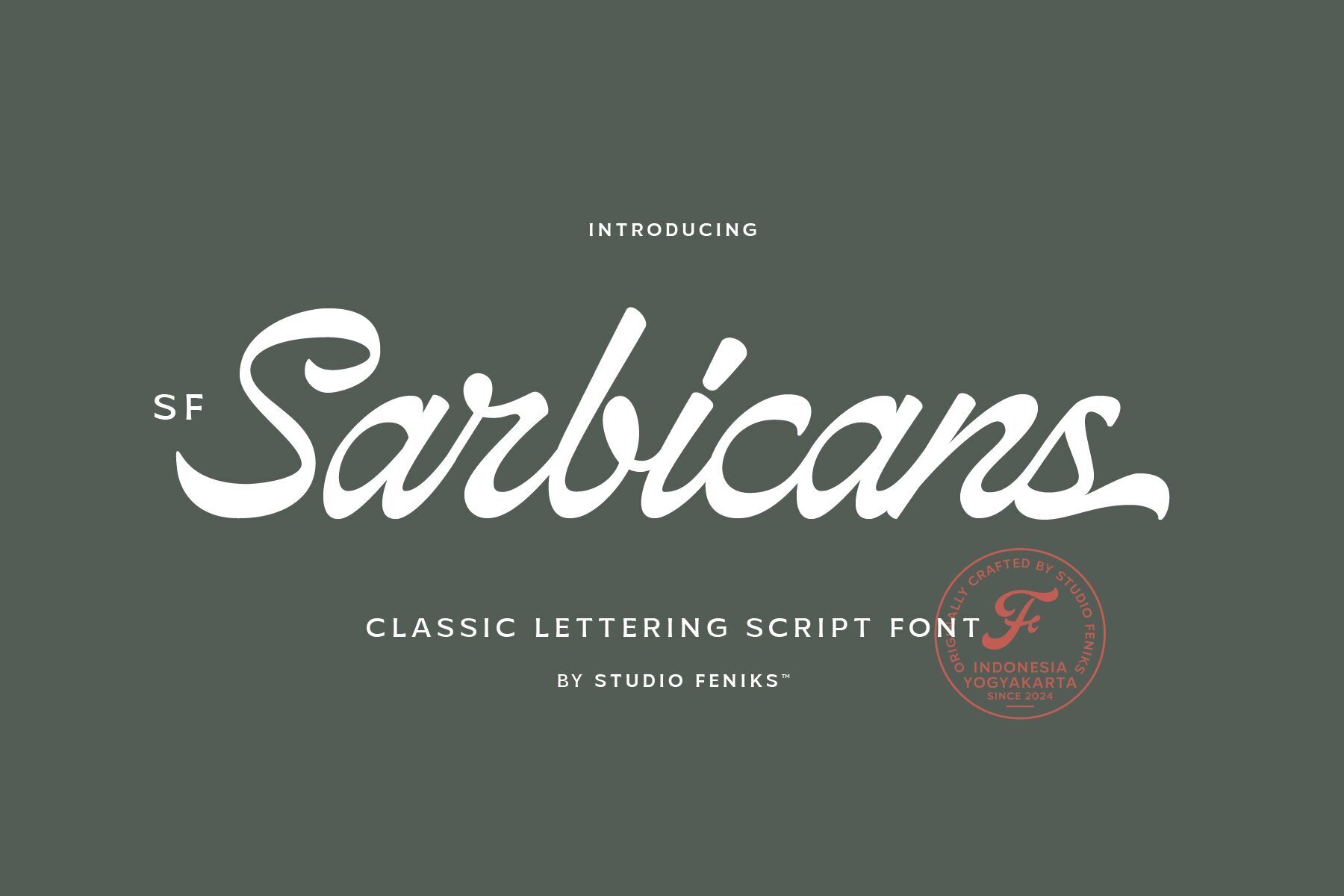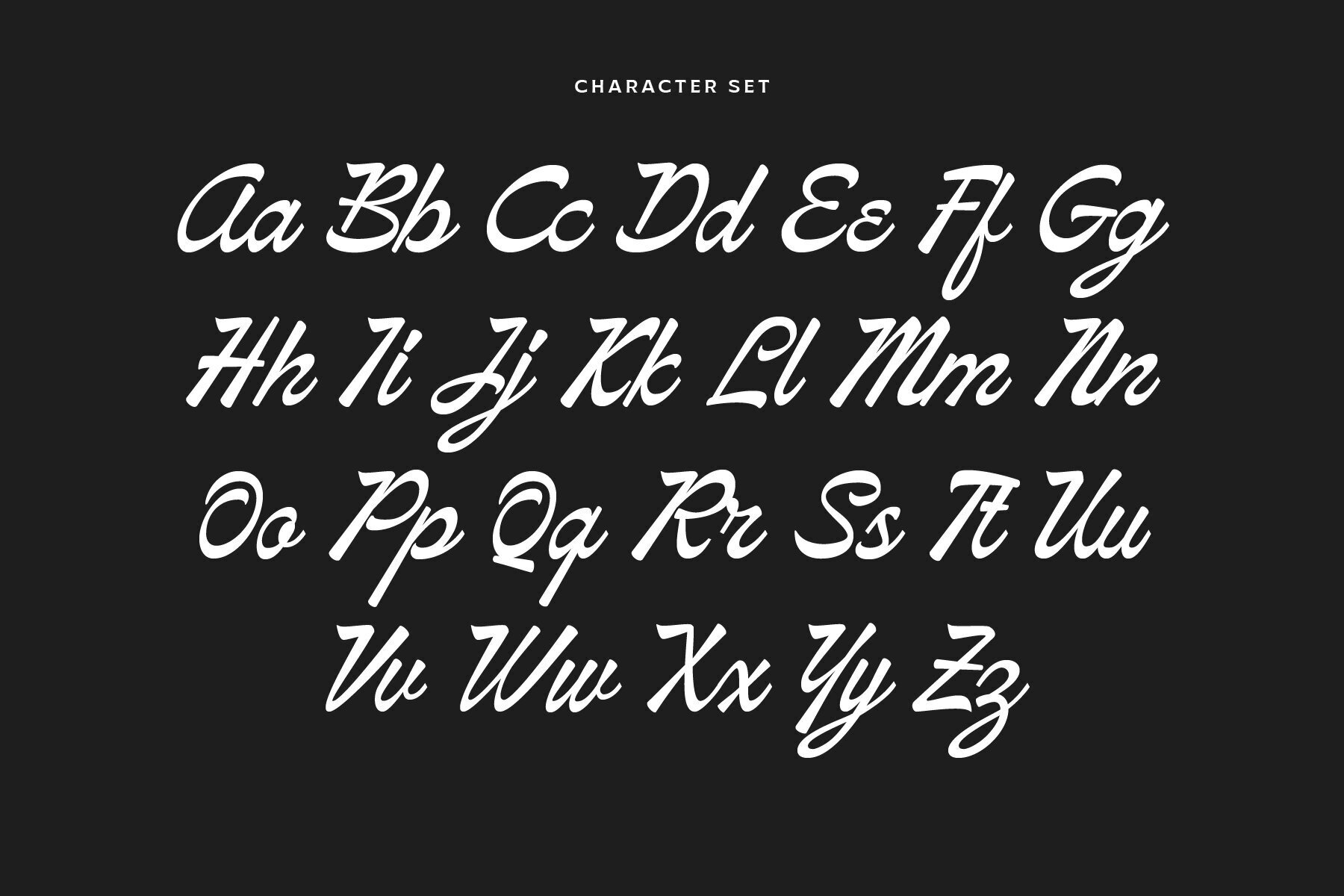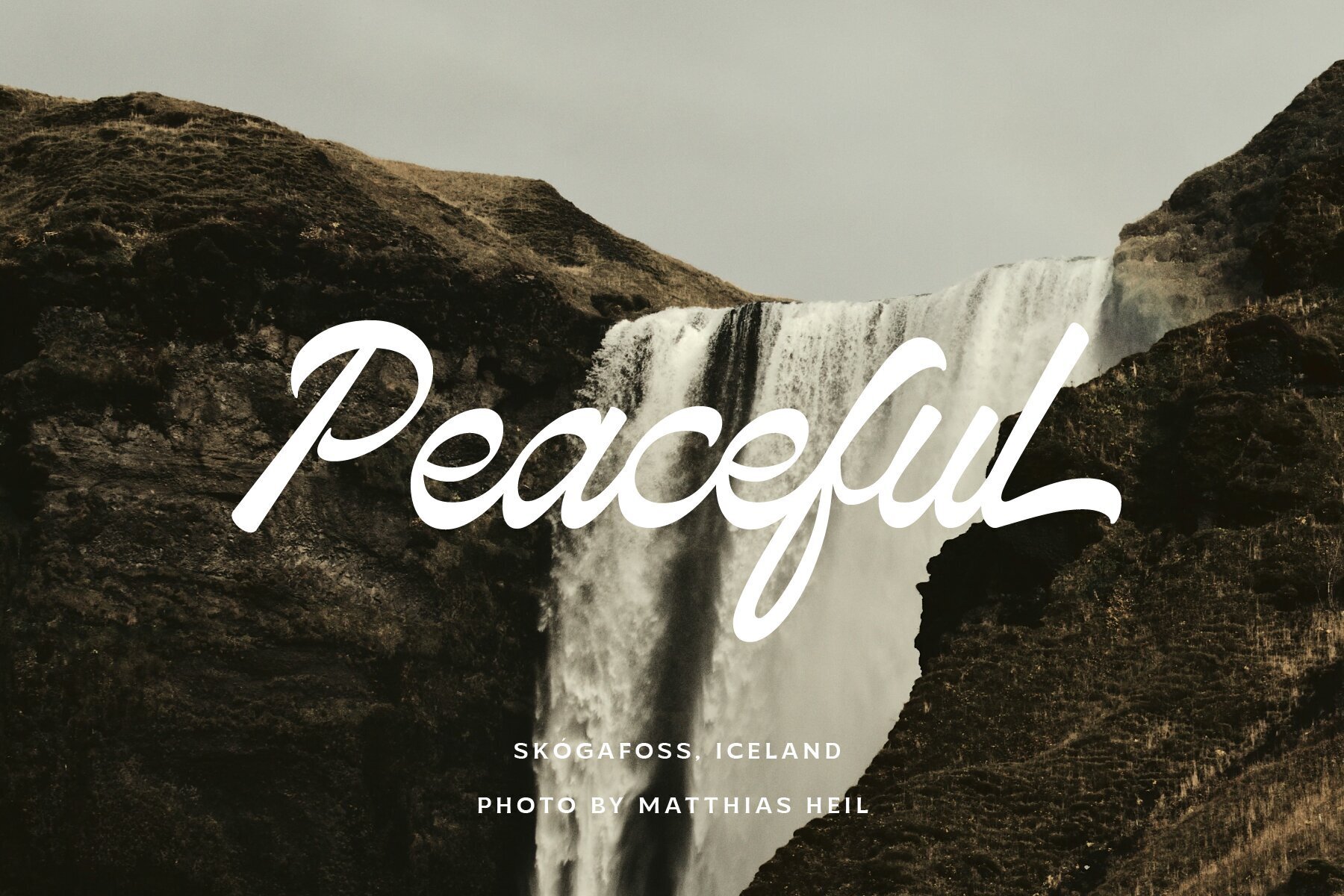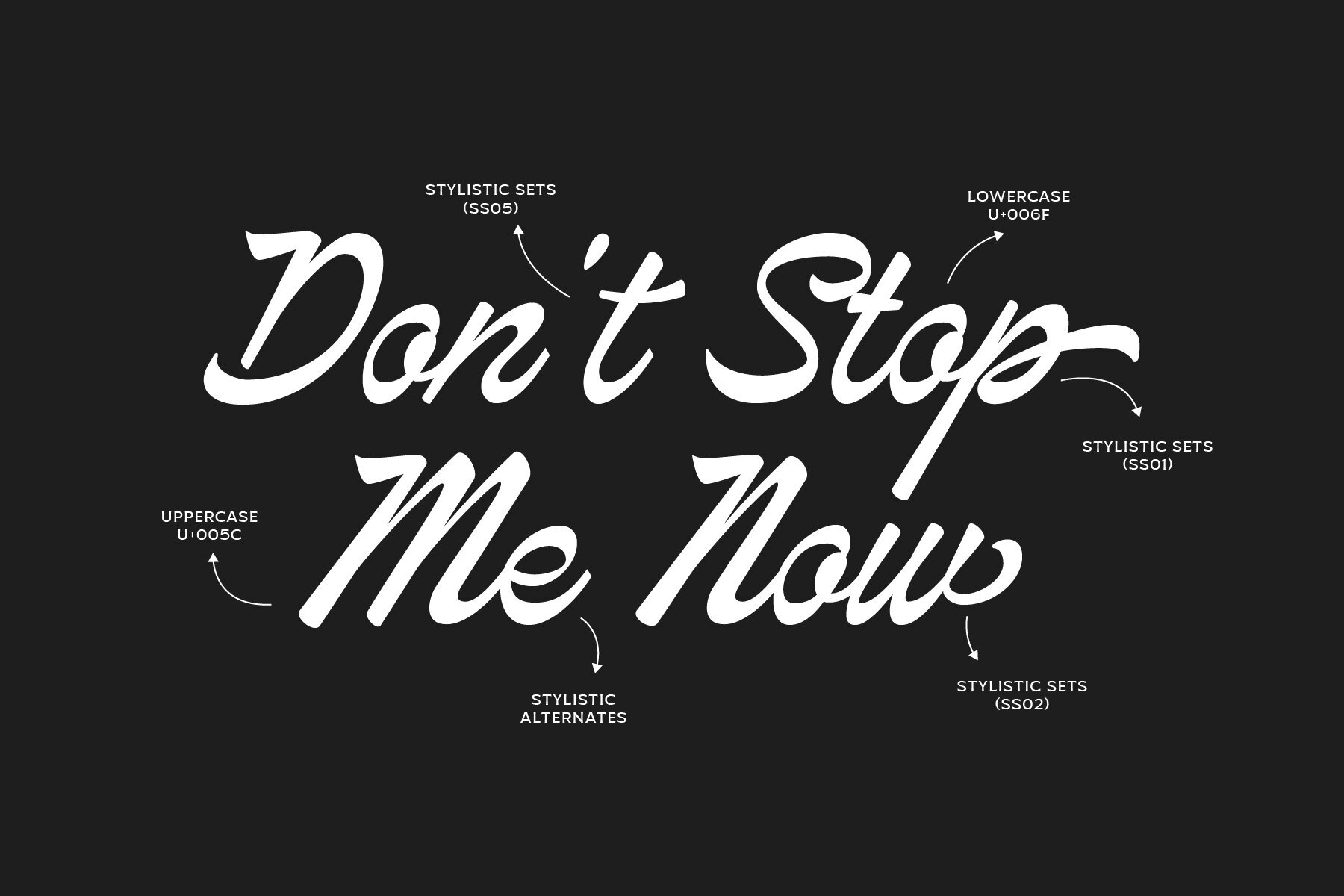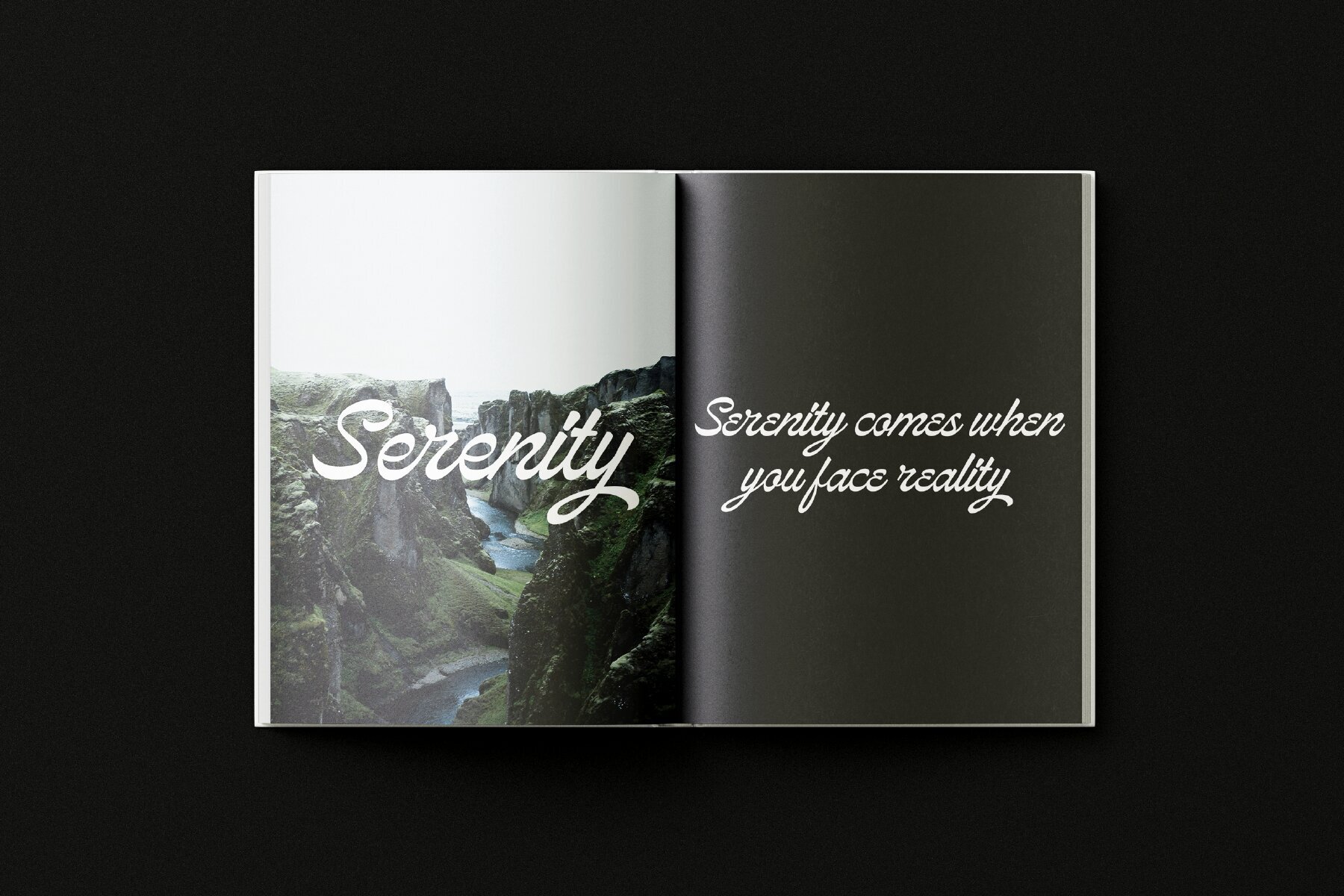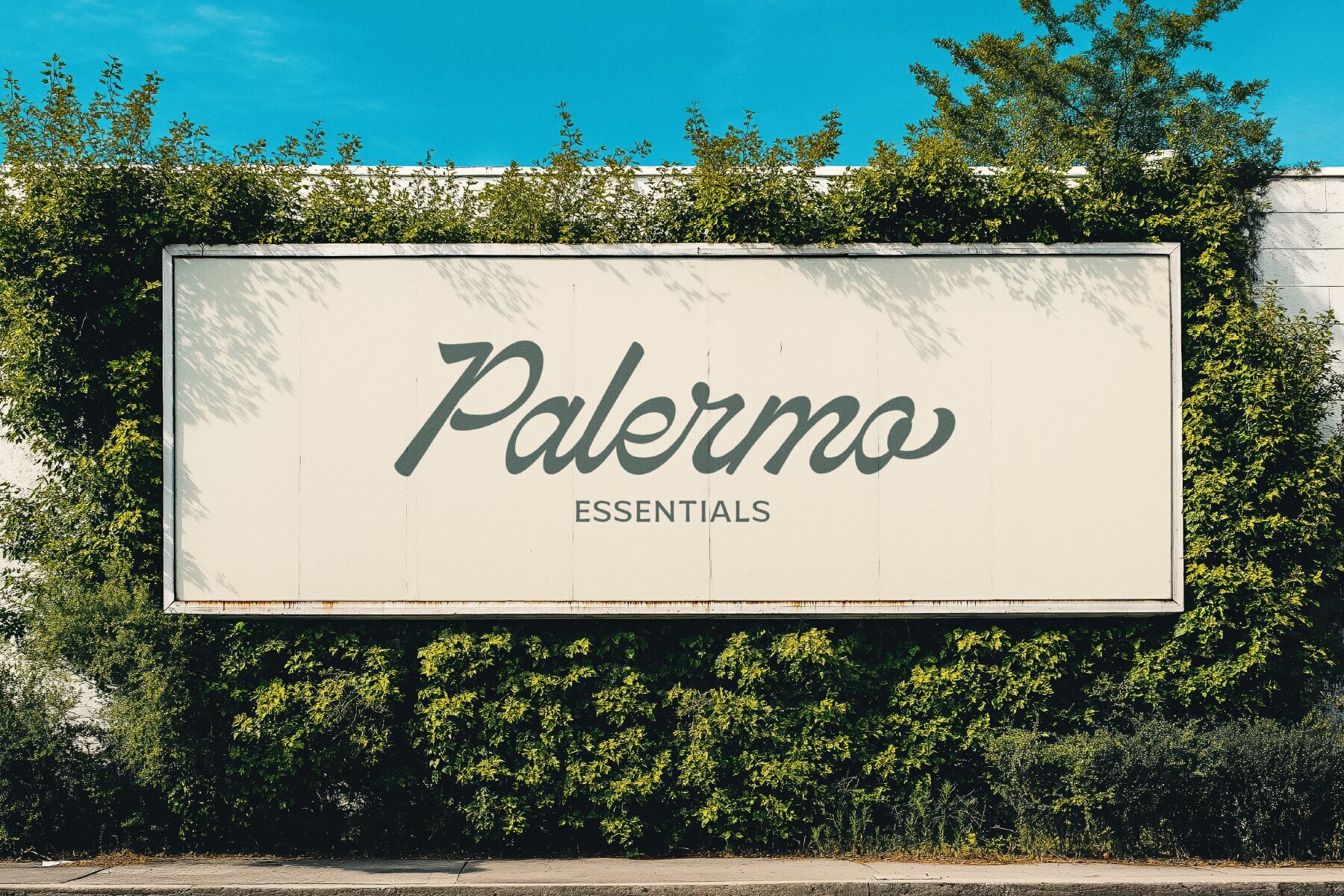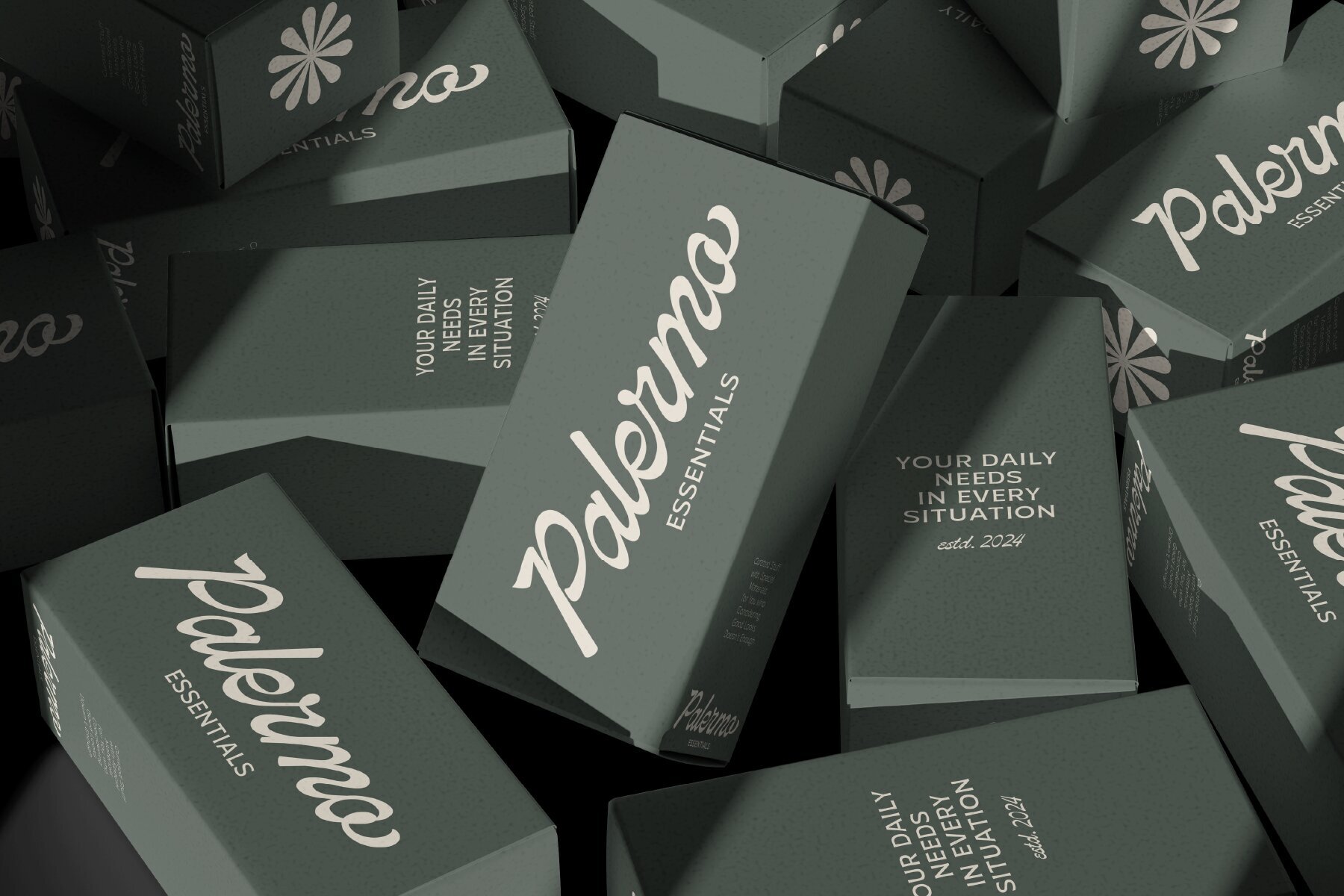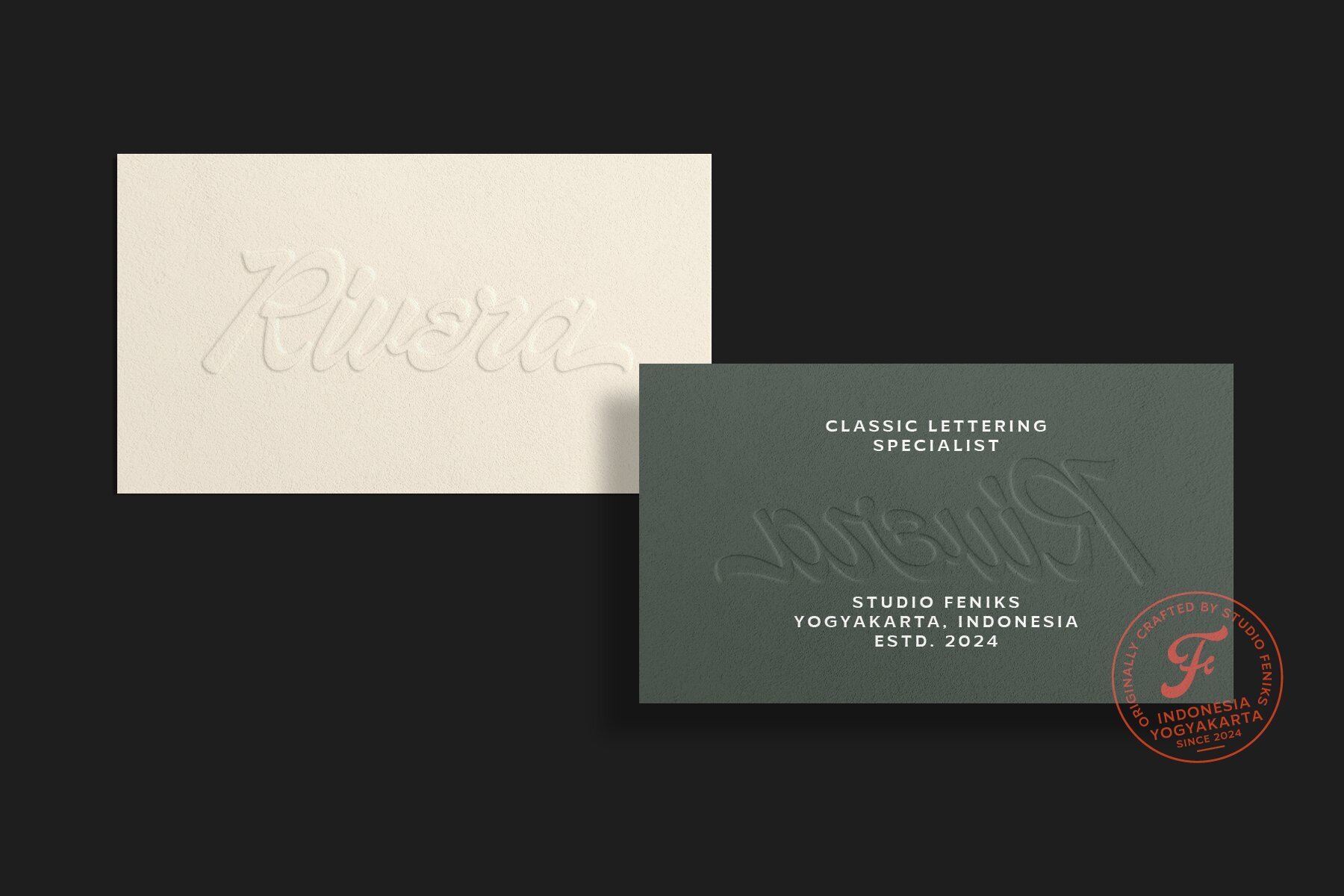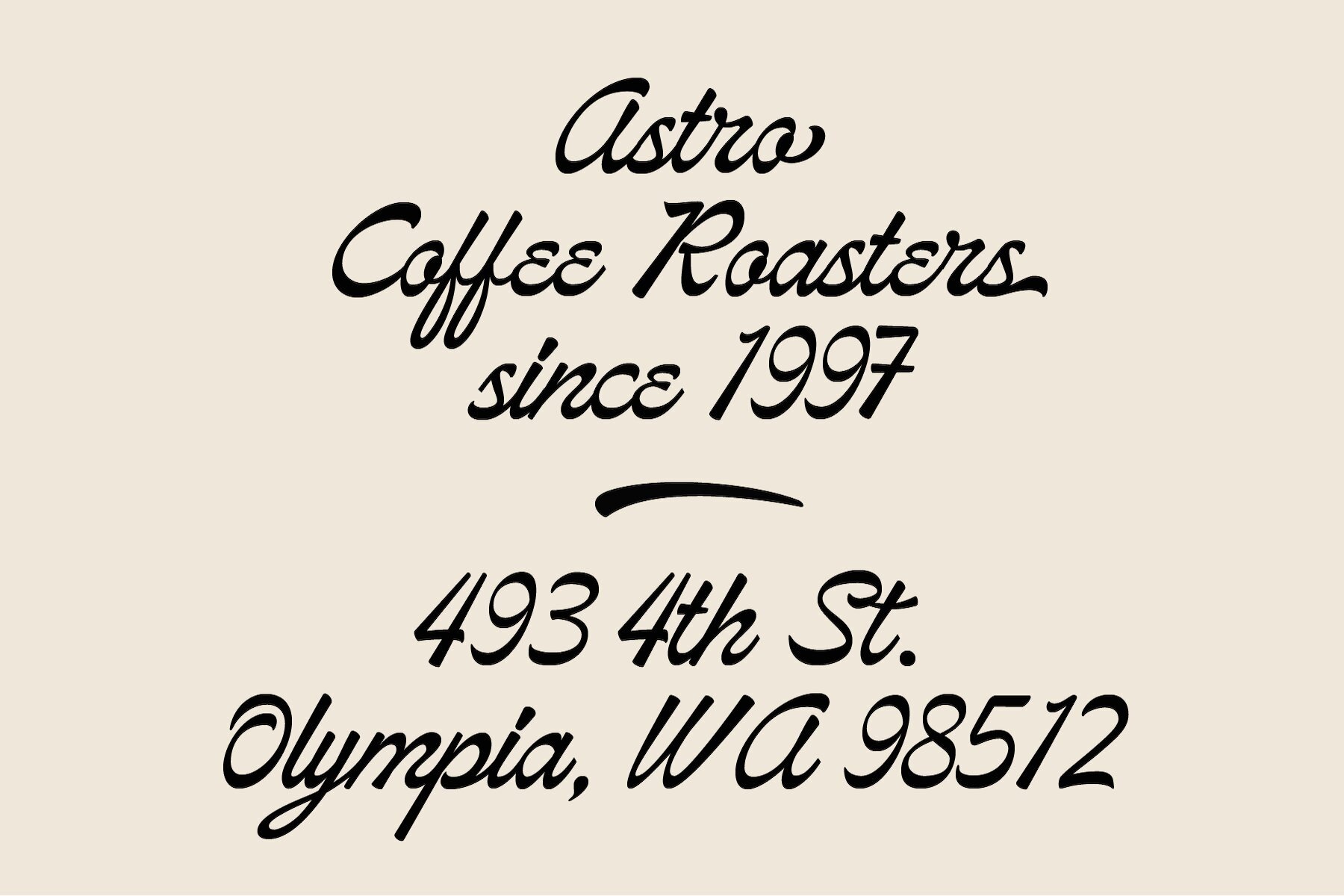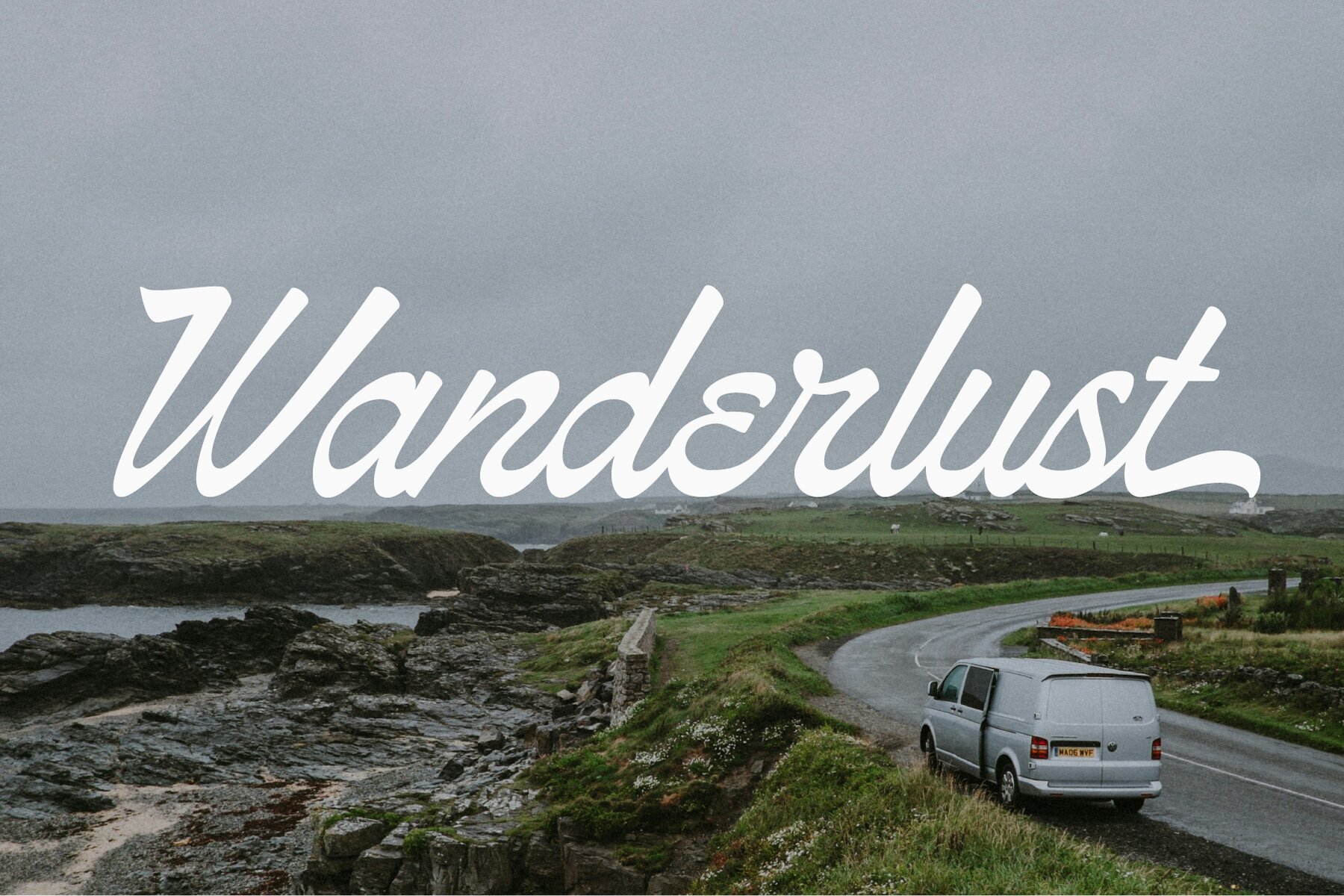
SF Sarbicans Font
Sarbicans Regular
SF Sarbicans is a hand lettering font with a casual style. This font is very suitable for branding, labels, logos, logotypes, name cards, and many more